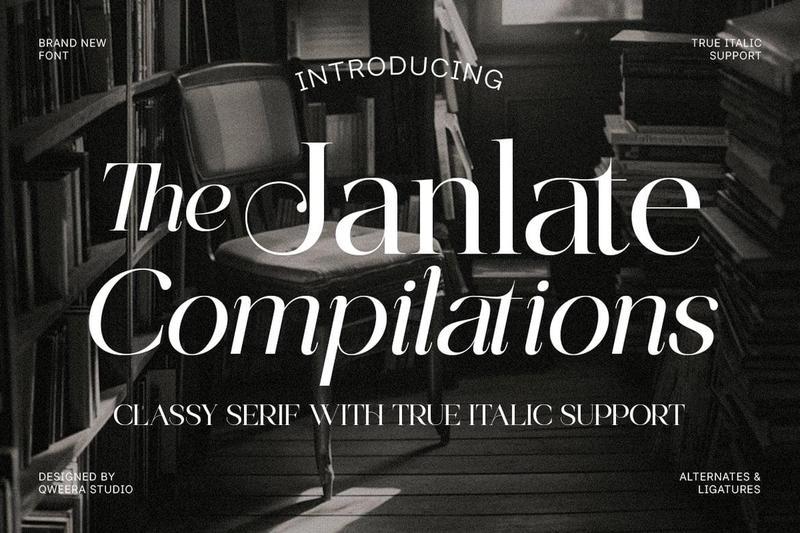
**The Janlate Compilations** is a classy editorial serif typeface designed to bring sophistication, readability, and timeless elegance into premium creative projects. Featuring refined letterforms, stylish alternates, graceful ligatures, and true italic support, this font creates a polished typographic presence for professional design work.
Perfect for editorial publishing, luxury branding, magazine layouts, book covers, fashion campaigns, boutique identities, premium logos, and upscale marketing materials.
The Janlate Compilations blends classic serif tradition with modern editorial refinement, making it an excellent choice for designers seeking elegant typography with a confident and intellectual feel.
**Features**
– Uppercase & lowercase
– Alternates & ligatures
– Multilingual support
– Professional kerning
– Regular & True Italic
**Perfect For**
Luxury branding, editorial publishing, magazine layouts, book covers, fashion campaigns, boutique logos, premium stationery